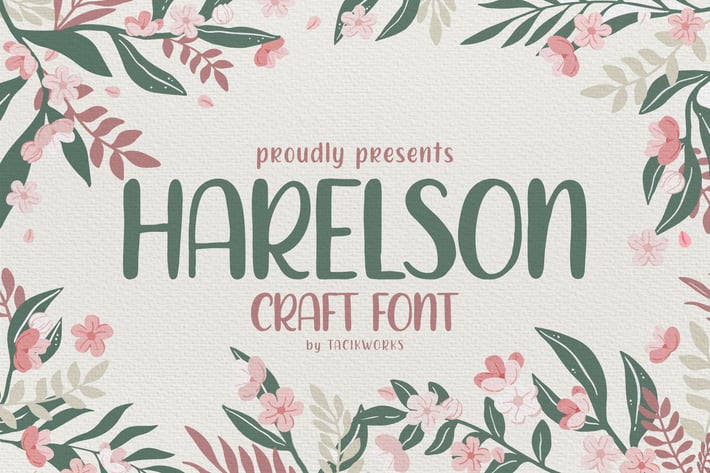
Harelson - Crafter Font
Harelson Craft inspired by the cuteness and beauty, this font is able to give their own creations to designers because they have many variations of different types of letters including uppercase, lowercase, discretionary ligatures and standard ligatures alternatives. It is suitable for creating cuteness designs such as posters, merchandise, clothing, brochures, business cards and others.